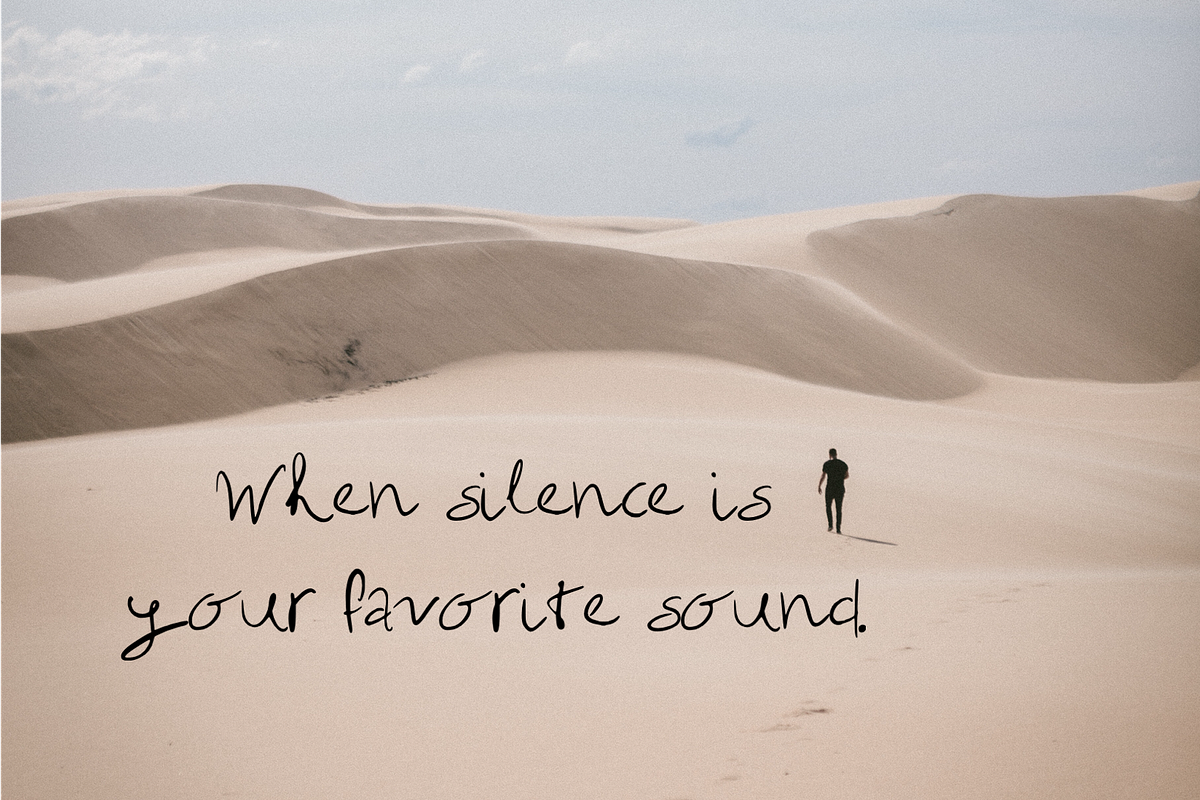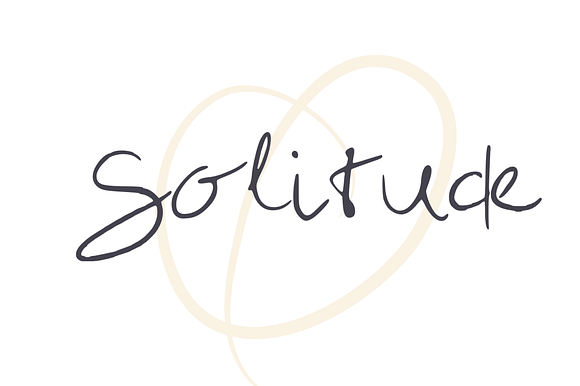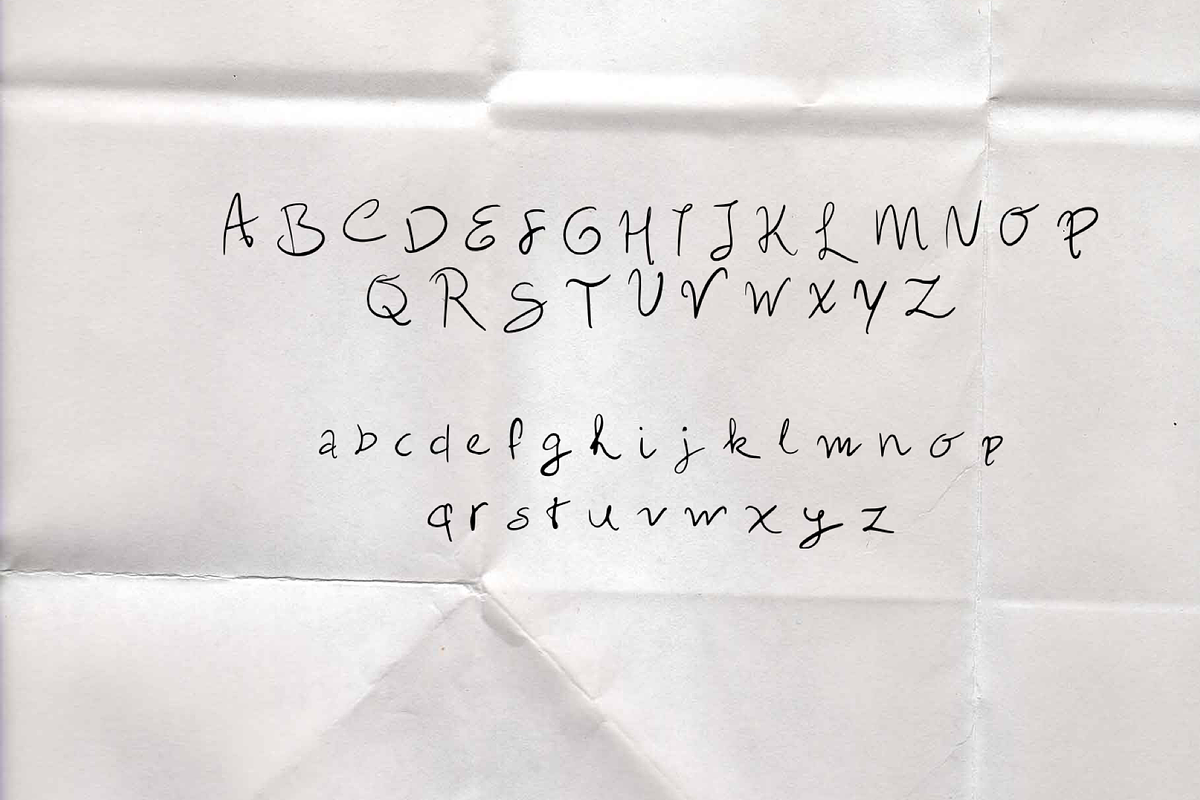
Solitude Handwritten Font
Solitude is a handwritten font. Ideal for logos, handwritten quotes, product packaging, header, poster, merchandise, social media & greeting cards.
Why Solitude Handwritten Font is worth a look
Solitude Handwritten Font by Mila Visuals fits naturally into Branding, posters, packaging, typography.